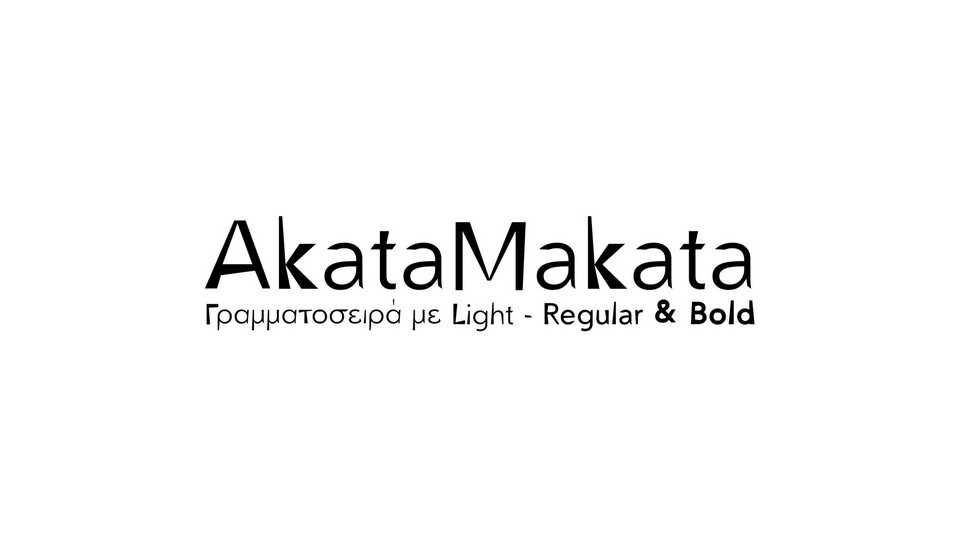
Download Akata Makata font, a sharp and contrast display typeface that brings a playful edge to your designs. The font is characterized by its strikingly sharp angles and bold, cutting forms.
Designer: Christos Lentzaris